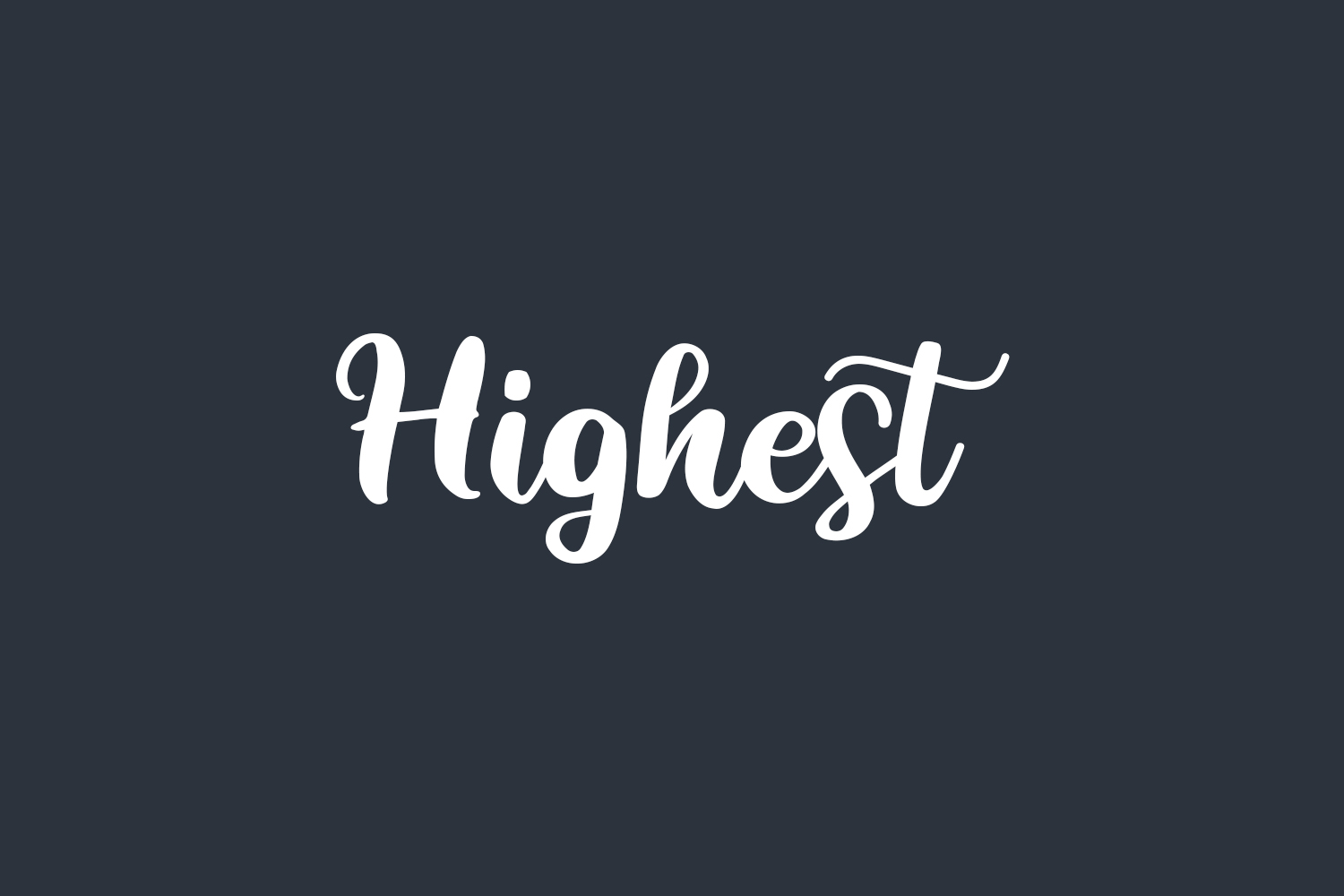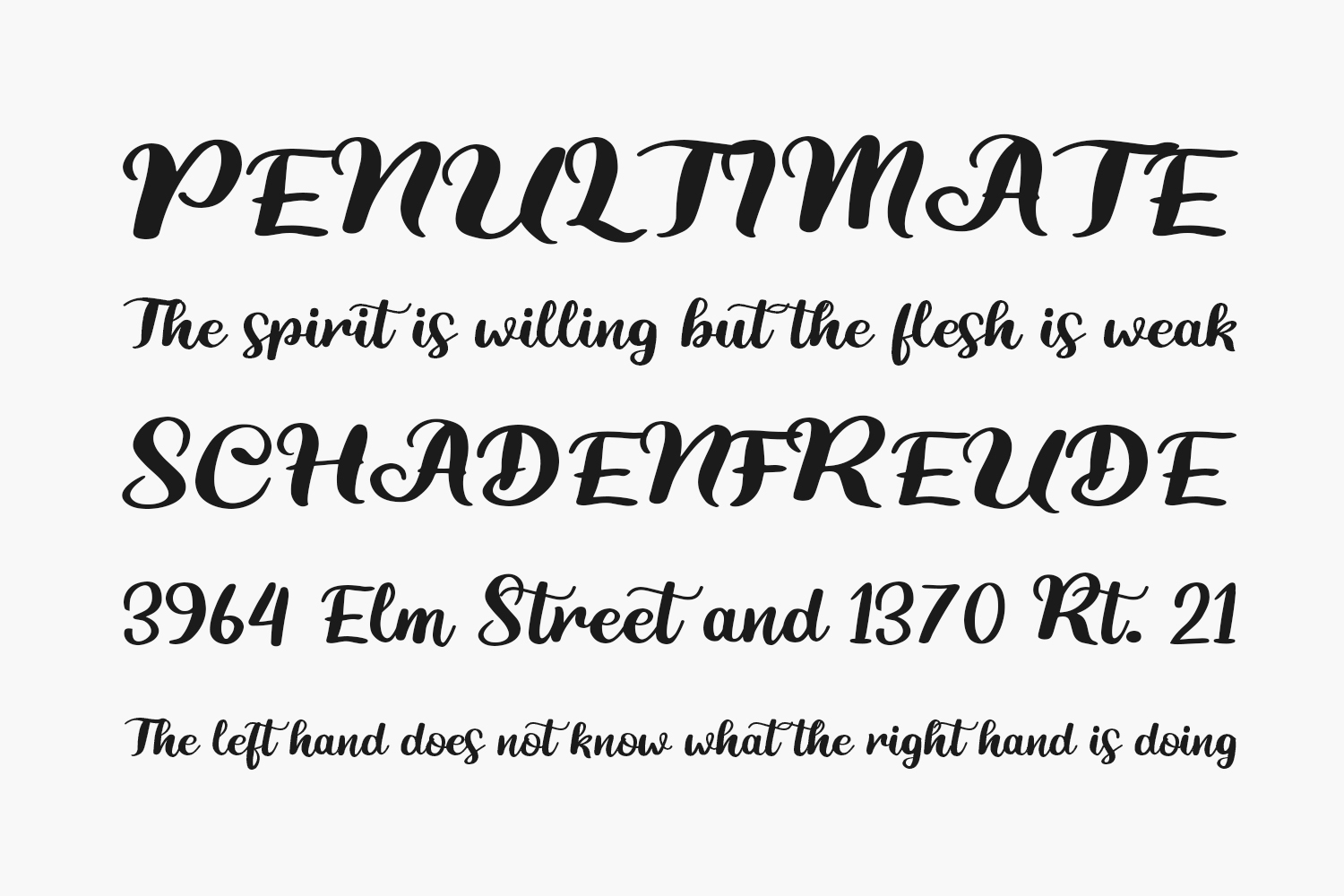
Highest Free Font is a modern & fresh script with a handwritten and natural script style. It will make your design look elegant, natural, and stylish. It’s perfect for any awesome projects such as photography, watermarks, quote designs, social media posts, advertisements, logos & branding, invitations, product designs, labels, stationery, wedding designs, product packaging, special events, or any project that needs a handwritten touch. Highest Free Font was designed by Letter Jos and is free for personal use only. Please purchase the full version for commercial use.